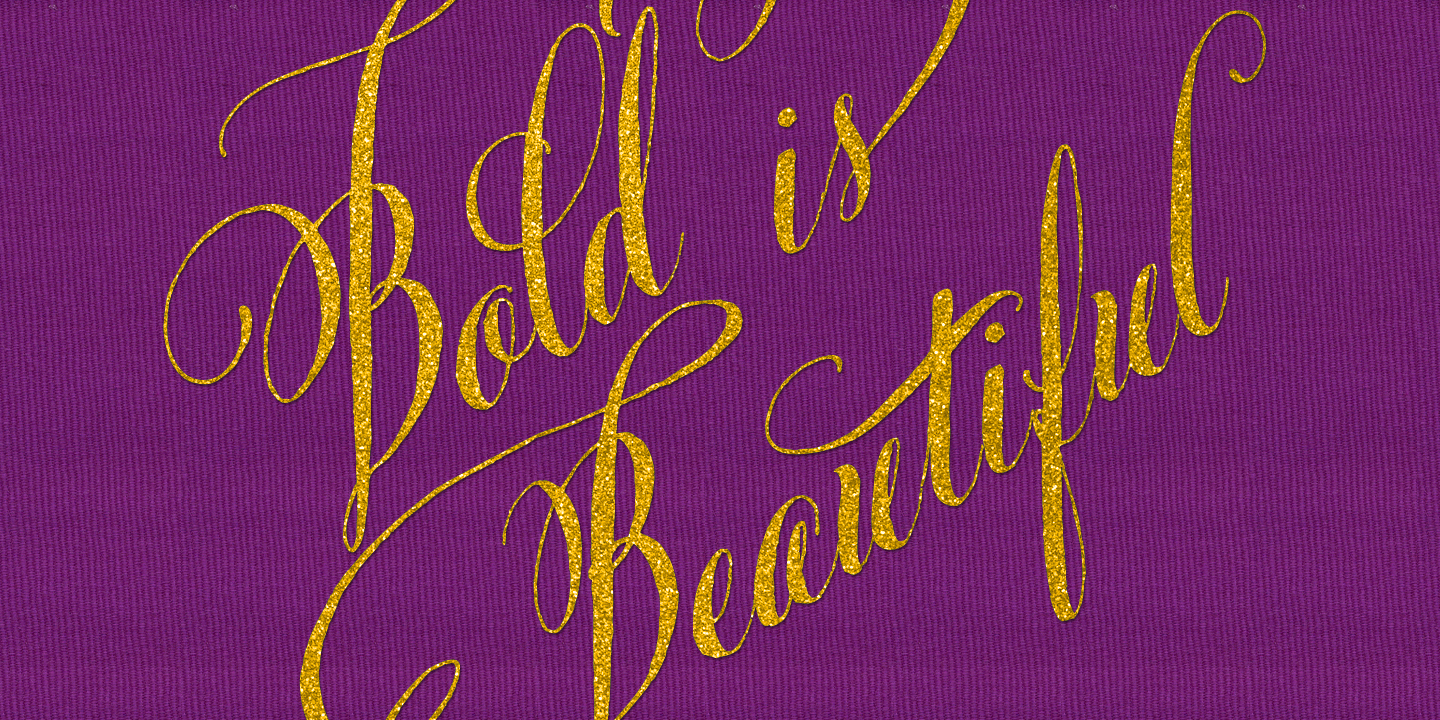
Belluccia Bold Font is perfect for elegant design applications including luxury wedding invitations, high-end fashion branding, premium beauty product packaging, sophisticated event stationery, boutique hotel signage, upscale restaurant menus, feminine lifestyle magazines, and exclusive brand communications. This graceful script typeface brings bold sophistication and romantic elegance to projects that demand distinctive luxury appeal.
What makes Belluccia Bold Font exciting is its masterful combination of bold presence with delicate feminine charm that creates an irresistibly elegant character. The font features flowing letterforms with confident strokes and ornate flourishes that embody both strength and grace. Its sophisticated script style communicates luxury and exclusivity while maintaining romantic appeal that resonates with discerning feminine audiences.
The Belluccia Bold Font family includes the signature bold script style with decorative alternates, elegant swashes, and contextual ligatures that enhance the luxury aesthetic. These refined options provide comprehensive design solutions for creating authentic luxury brand identities that celebrate feminine sophistication and romantic elegance.
This distinguished script typeface represents the pinnacle of luxury typography and feminine design aesthetics. Premium brands and luxury service providers choose Belluccia Bold Font Free Download for its exceptional ability to communicate sophistication and romantic luxury. The font's elegant boldness makes it perfect for high-end weddings, luxury beauty brands, and exclusive lifestyle companies that target affluent feminine markets. Its graceful character ensures memorable brand recognition while maintaining the sophisticated aesthetic that defines exceptional luxury design work.